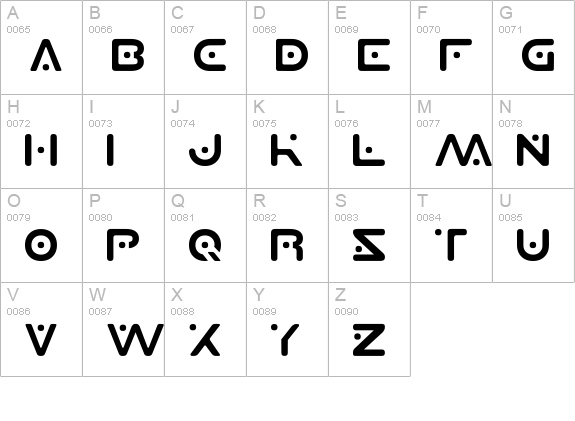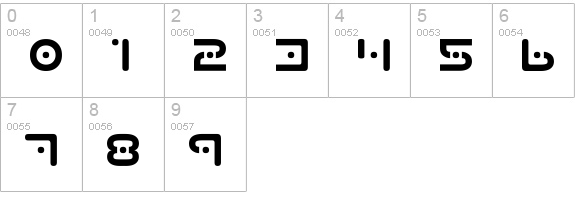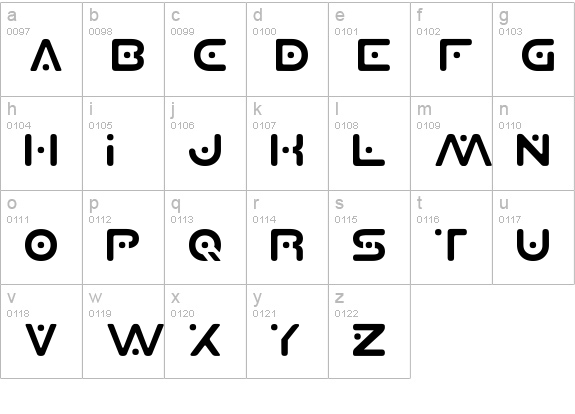
Planet S Font Details
Planet S is a captivating and versatile font that adds a touch of futuristic elegance to any design project. With its sleek and streamlined letterforms, this font is perfect for creating eye-catching logos, headlines, and signage. The clean lines and geometric shapes of Planet S give it a modern and futuristic look, making it ideal for projects that require a contemporary aesthetic. One of the most appealing aspects of Planet S is that it is available for free. That's right, you can easily download this font without spending a dime. Whether you are a professional designer or a hobbyist, having access to high-quality fonts at no cost is a game-changer. Planet S can be freely downloaded at FontsMarket.com, a reliable and user-friendly platform that offers a vast collection of fonts for all your creative needs. Not only does Planet S offer a stunning visual appeal, but it also boasts excellent legibility. The carefully crafted letterforms ensure that each character is easily recognizable, even at smaller sizes. This makes Planet S a great choice for both print and digital applications, as it guarantees readability across various mediums. The versatility of Planet S is another notable feature. It effortlessly adapts to different design styles and can be used in a wide range of projects, from branding and packaging to web design and advertising. Whether you are aiming for a minimalist and clean look or a bold and expressive design, Planet S will complement your vision and elevate your project to new heights. In conclusion, Planet S is a striking font that combines futuristic elegance with exceptional legibility. Its availability as a free font allows designers of all levels to access high-quality typography without breaking the bank. So, why wait? Head over to FontsMarket.com and download Planet S today to add a touch of visual sophistication to your next design endeavor.